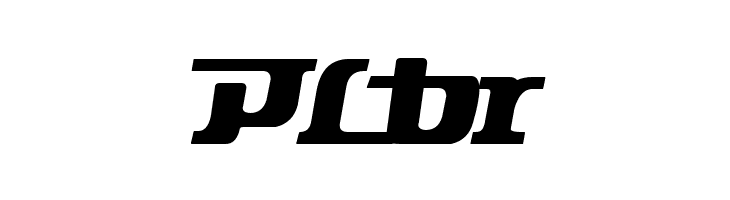
Mandalaz Sensei Alternate Demo Font
- Font: Mandalaz Sensei Alternate Demo
A bold, futuristic font with italicized, dynamic characters.
( Fonts by dartcanada.tripod.com - Darren Rigby )